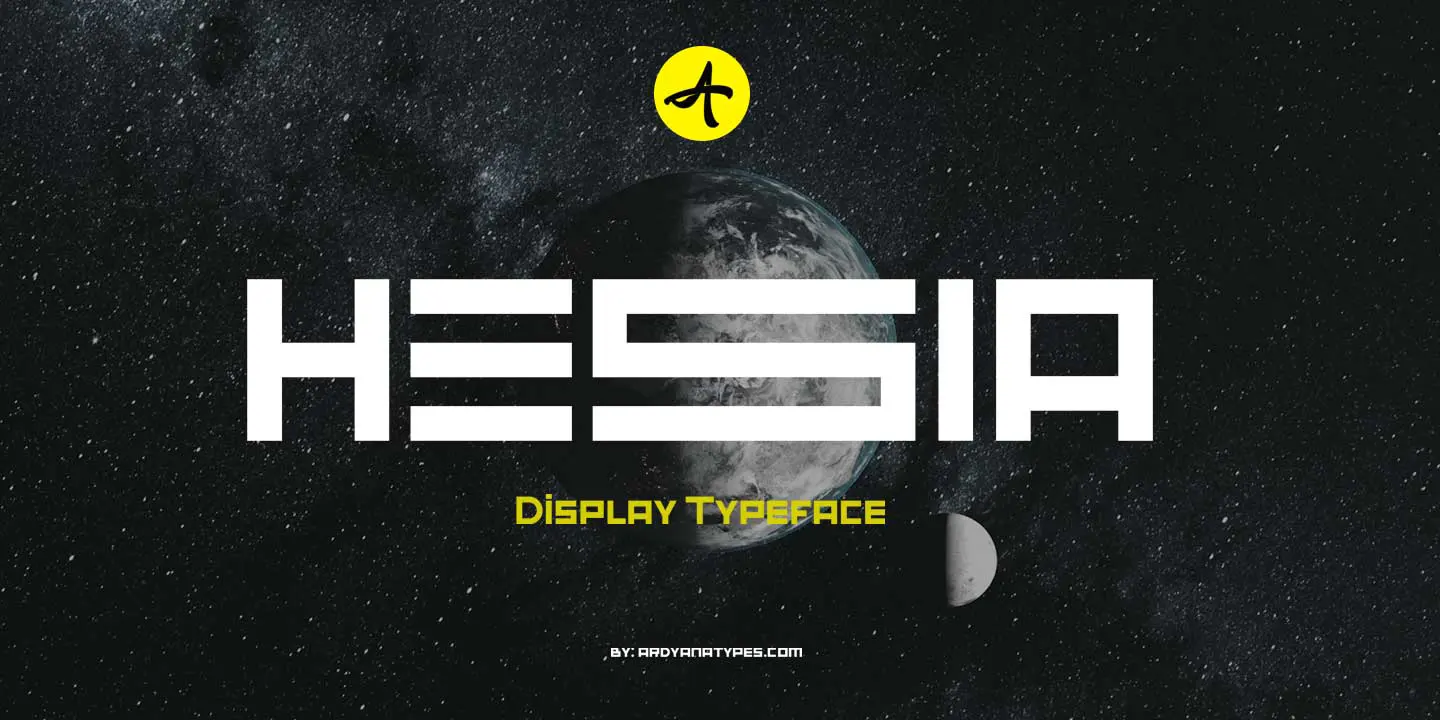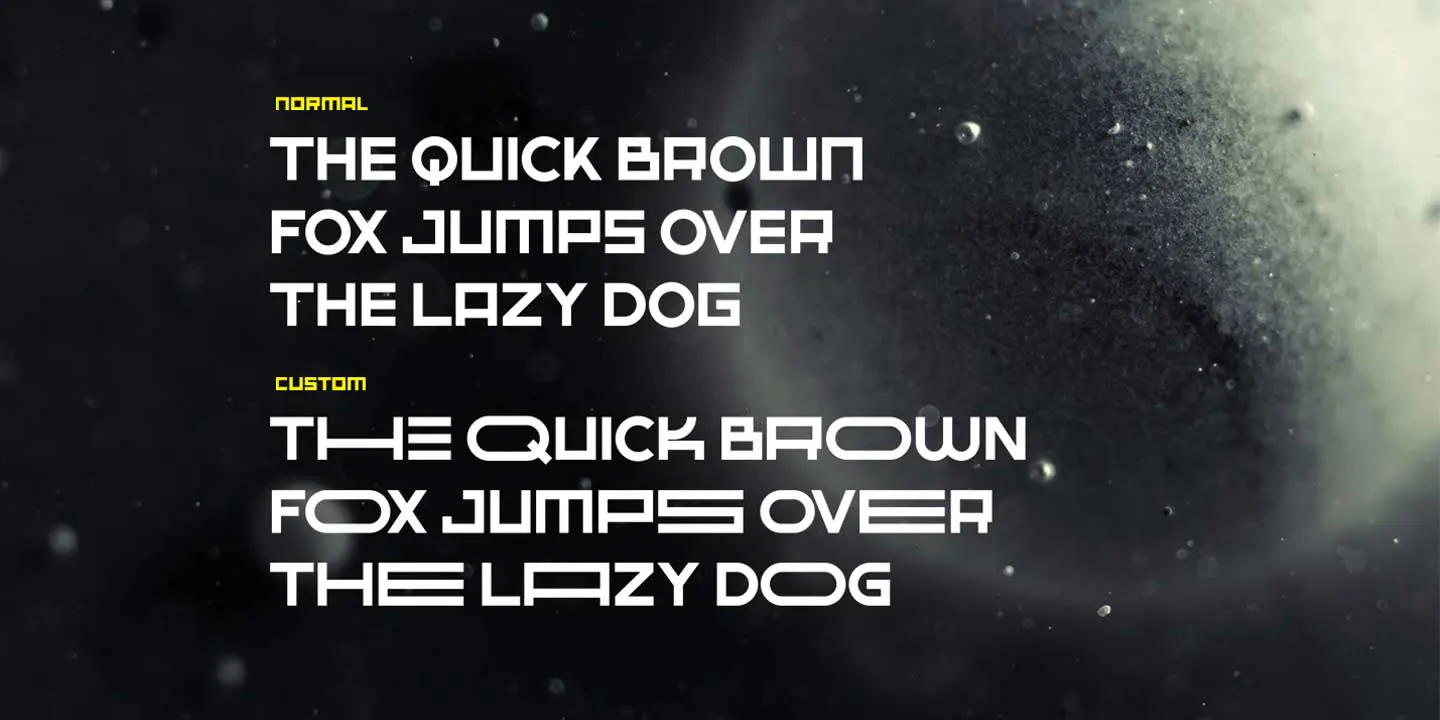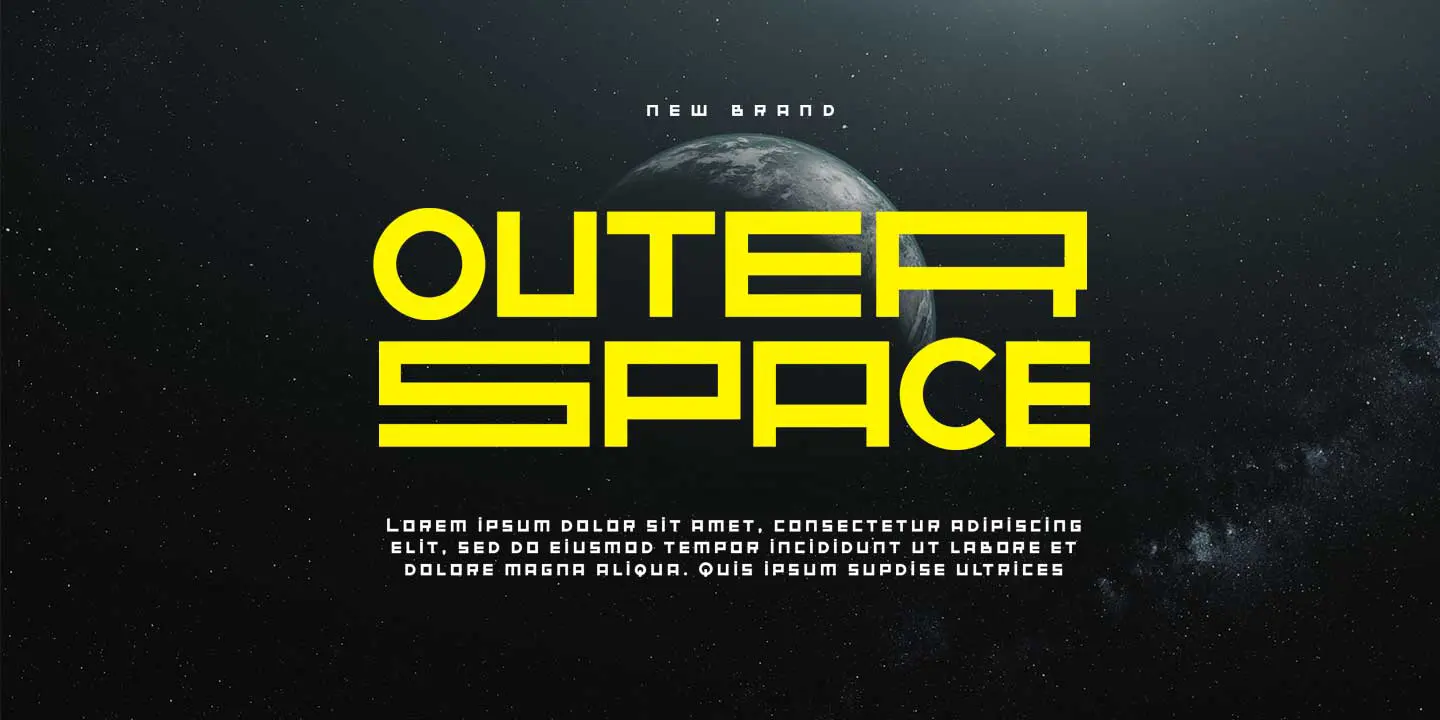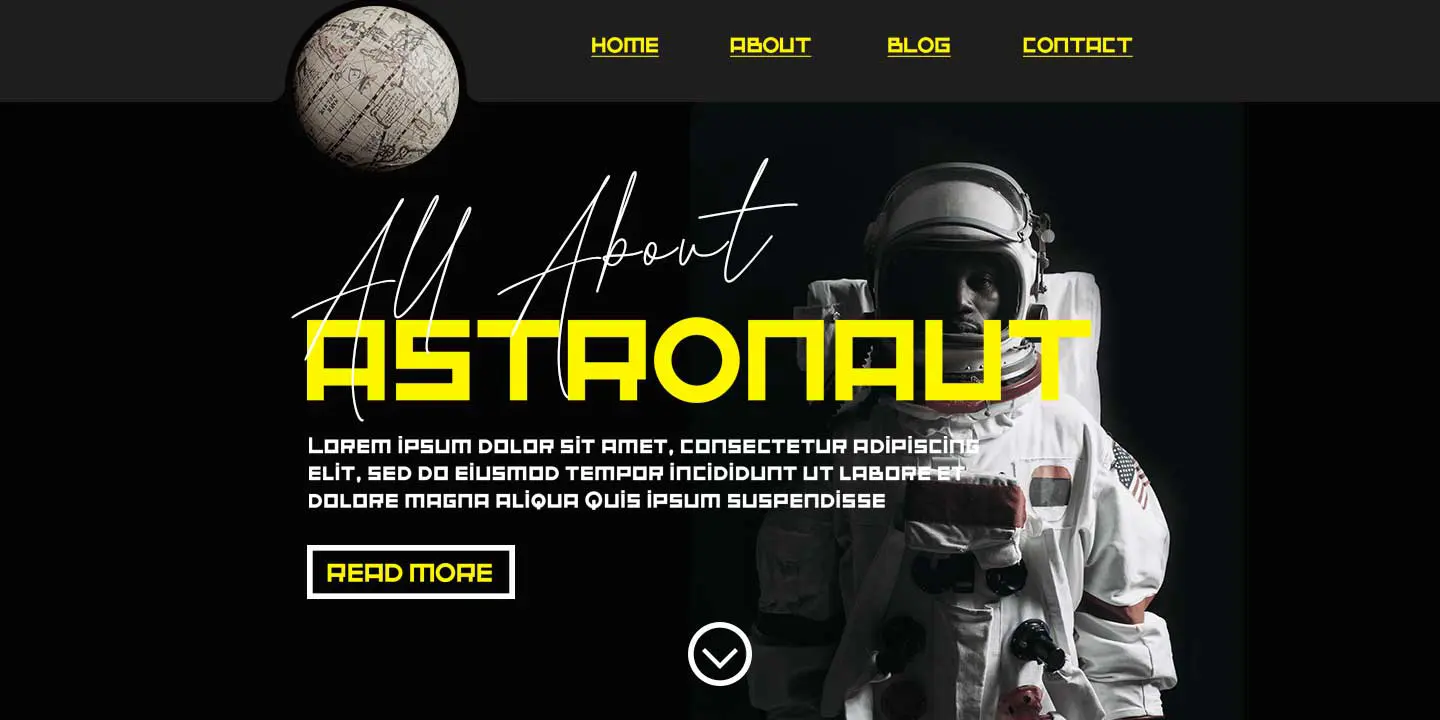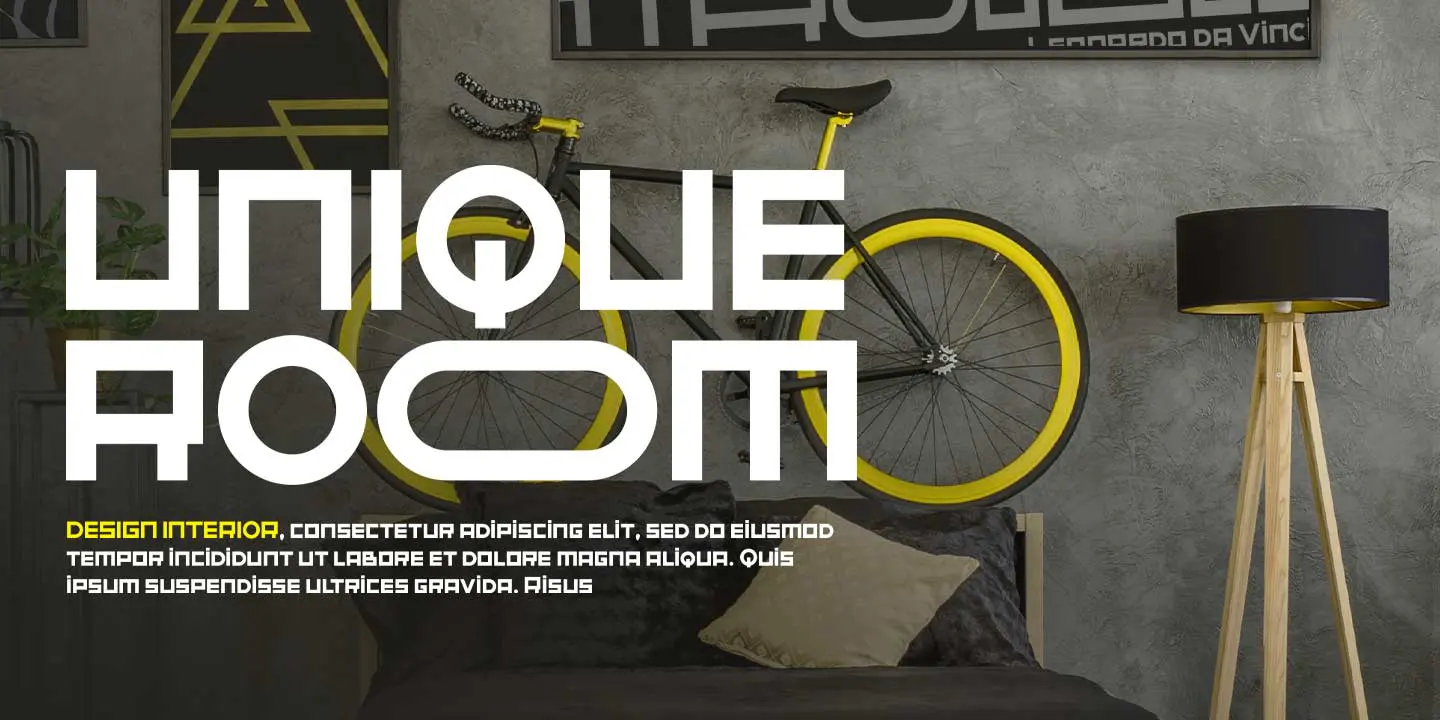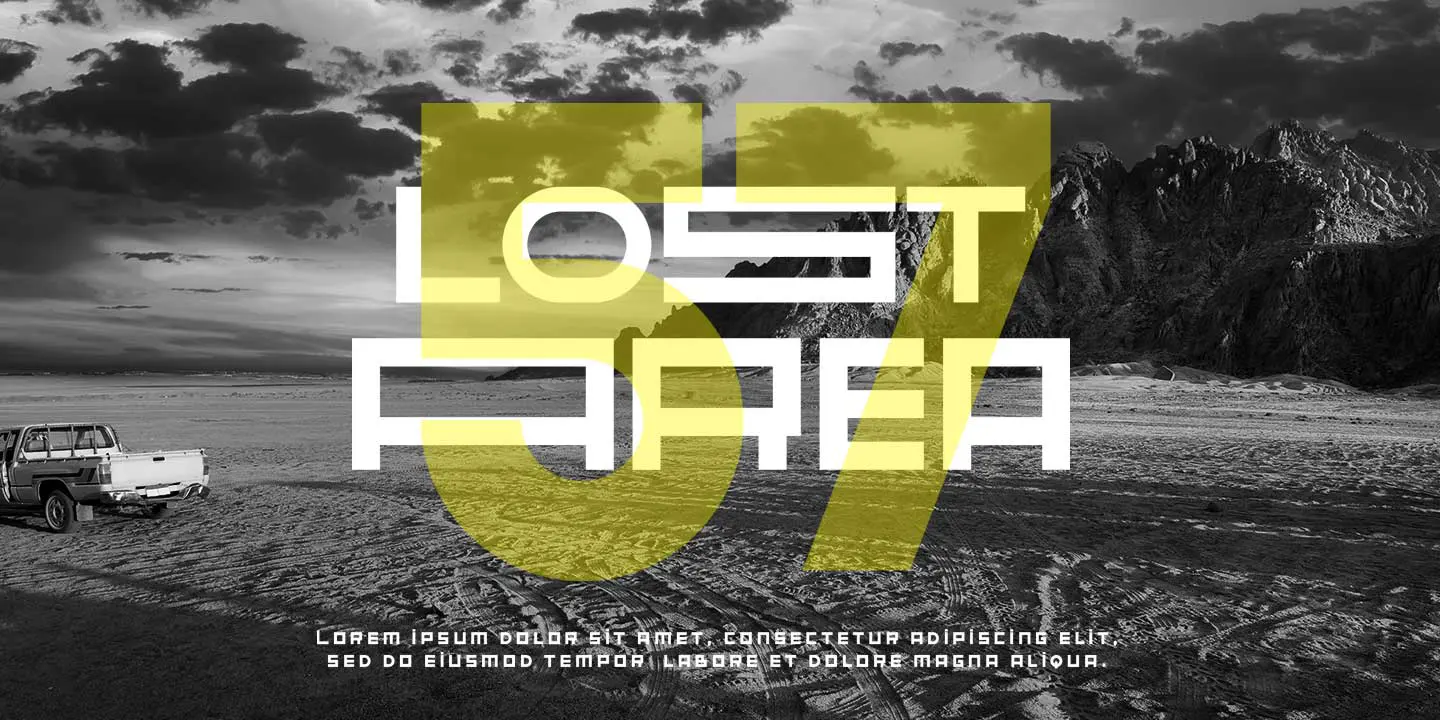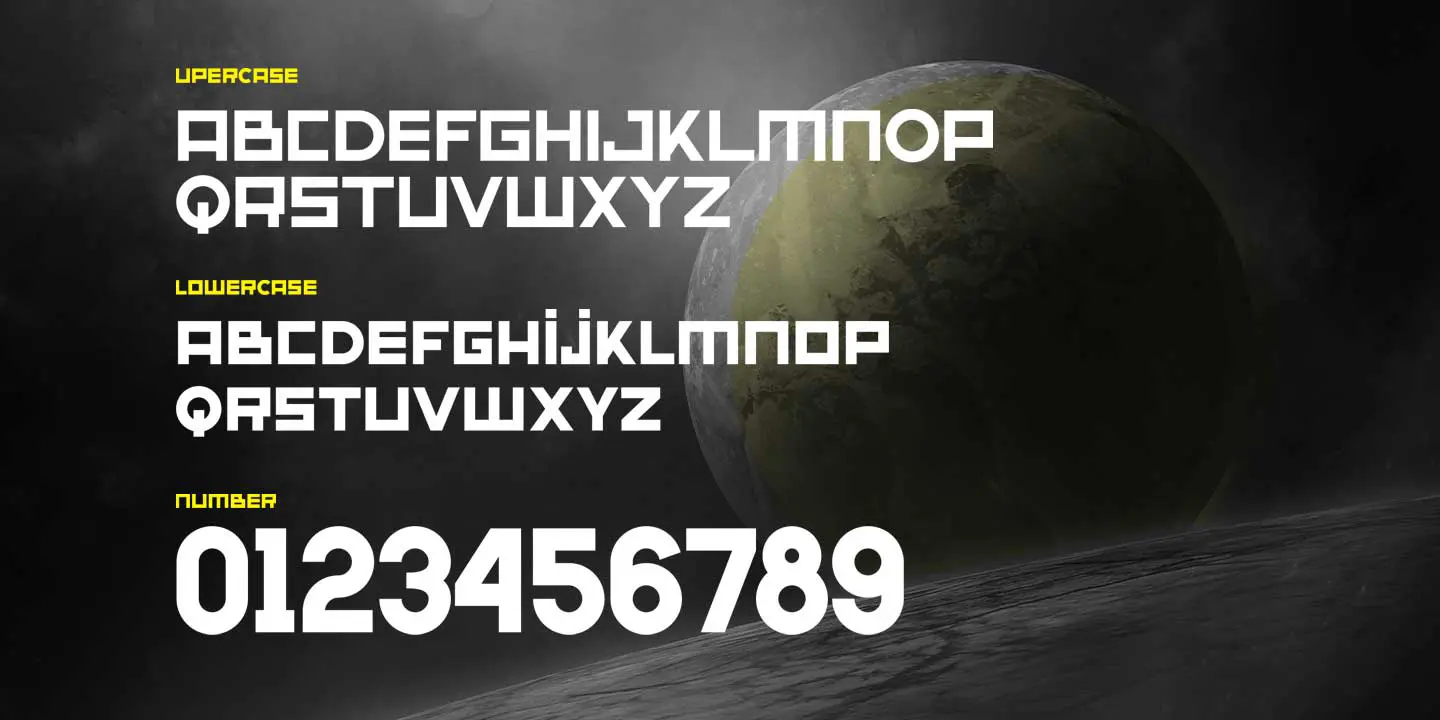
Hesia
Introducing Hesia Typeface Style which has a unique and very strong character that makes all designs look unique and have a modern feel. Hesia has its own charm, so it will be very suitable to be combined with any style. Has Lots of Alternatives and ligatures to add a great interactive feel to every design. Hesia also comes with multilingual support and is very easy to use. Hesia is interesting to use in designs such as books, movie posters, logos, branding, business cards, and more that can be combined with Hesia Typeface.